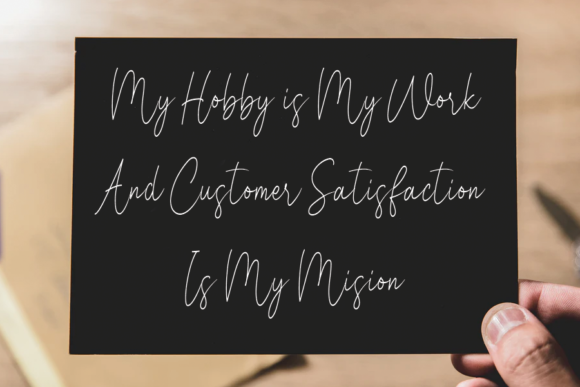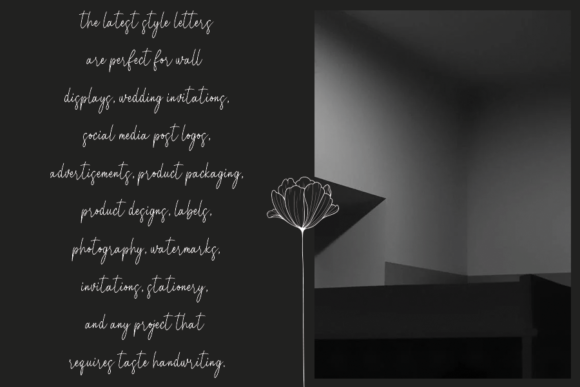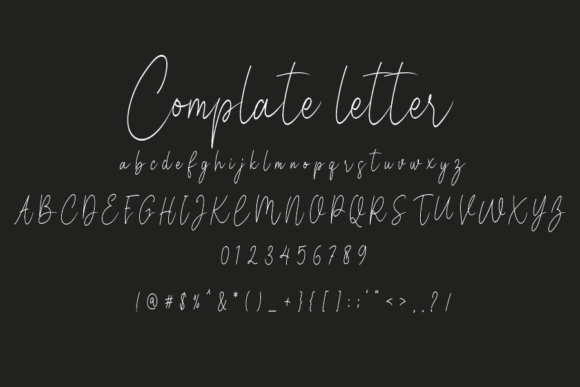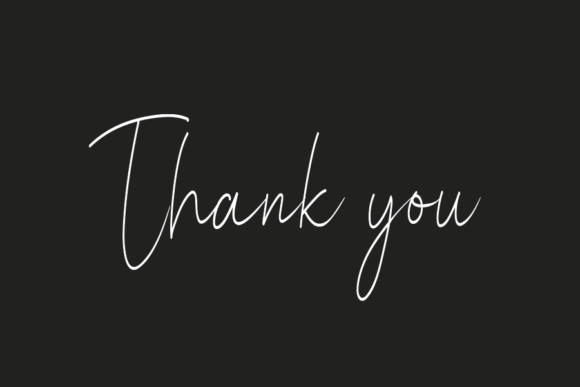
Introduction to Helloshinta Font
Imagine you’re working on a creative project, and you’re stuck on finding the perfect font to bring your vision to life. You scroll through design resources, searching for something that exudes elegance and sophistication, yet feels modern and fresh. And then, you stumble upon it – the Helloshinta Font.
This exquisite handwritten font is a game-changer for designers, offering a unique blend of classy calligraphic influences and contemporary charm. With its high-quality design, the Helloshinta Font is a valuable asset for any creative project, from branding and marketing materials to digital art and more.
Key Features of Helloshinta Font
- Unique and elegant design, perfect for creative projects that require a touch of sophistication.
- High-quality font with a transparent background, ideal for designs that require a clean and minimalist look.
Honest Review: Helloshinta Font
I recently had the chance to work with the Helloshinta Font, and I must say it’s been a pleasant experience. The font is a great addition to any designer’s toolkit, offering a wide range of styles and formats to suit various creative projects.
- ✨ Wide range of styles and formats
- ✨ High quality and crisp typography
However, there are some limitations to consider. The font may not be as extensive as some other popular fonts, and the styles may not be as unique as some designers might prefer. Additionally, the font’s functionality is limited to desktop use, which may be a drawback for some designers who work primarily in mobile or web environments.
Overall, I’m impressed with the Helloshinta Font’s performance and flexibility. While it may not be the most comprehensive font, it’s a solid addition to any designer’s resource library. If you’re looking for a high-quality, free font for your creative project, the Helloshinta Font is definitely worth checking out.
The Helloshinta Font is perfect for various creative projects, including graphic design, digital art, and typography. Its high-quality design and transparent background feature make it a valuable resource for designers and artists.